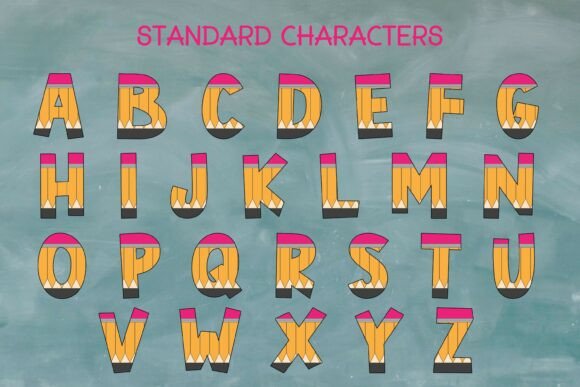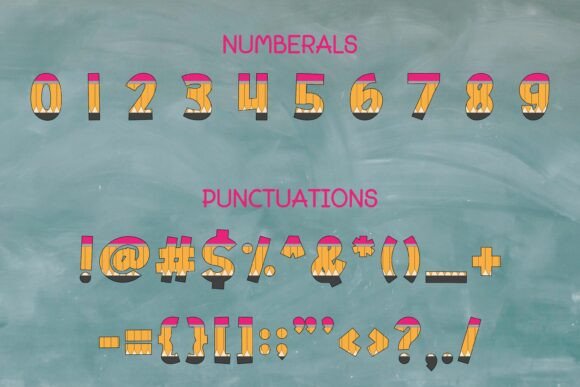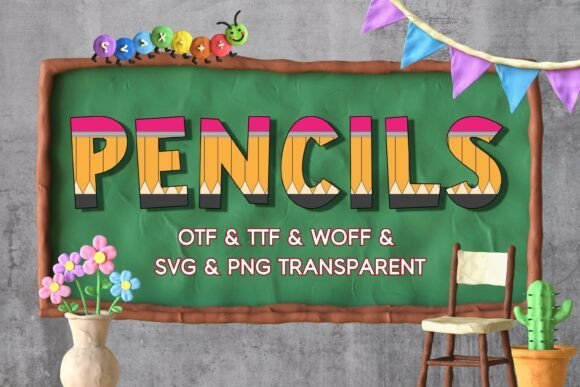
Introduction to Pencils Font
The Pencils font is a playful and vibrant color font designed to mimic the appearance of classic yellow pencils, complete with detailed wood textures, graphite tips, and brightly colored eraser tops.
👤 Author Adalin Digital
Each letter is constructed to look like a standing pencil, giving it a three-dimensional, hand-crafted feel that immediately evokes a classroom or back-to-school theme The font features bold, geometric letterforms filled with vivid colors and outlined in dark shades for extra contrast and depth.